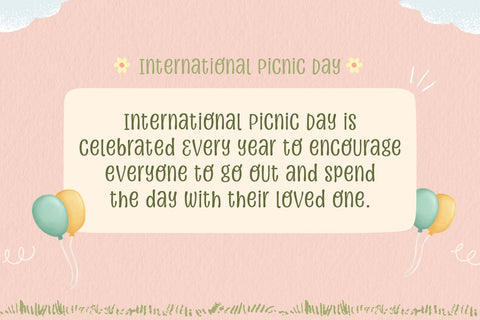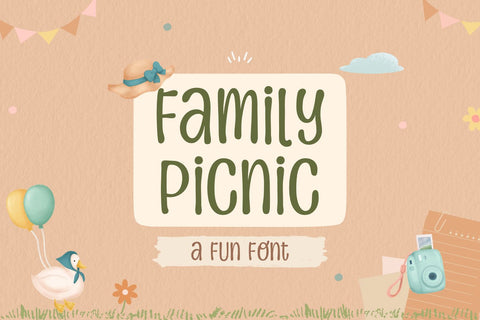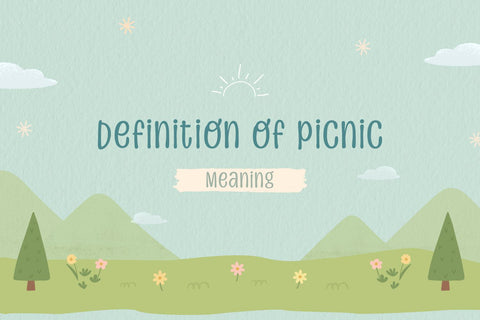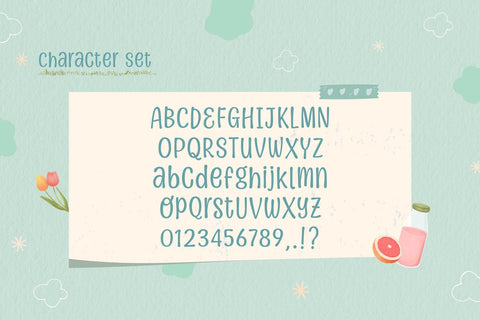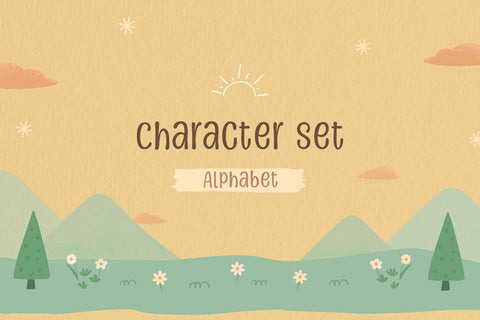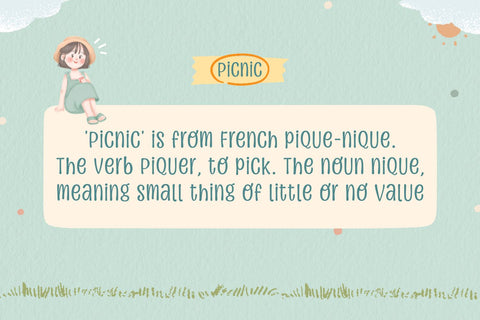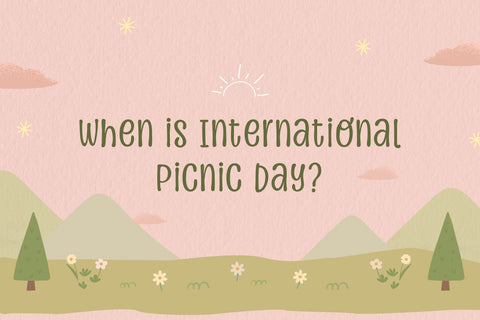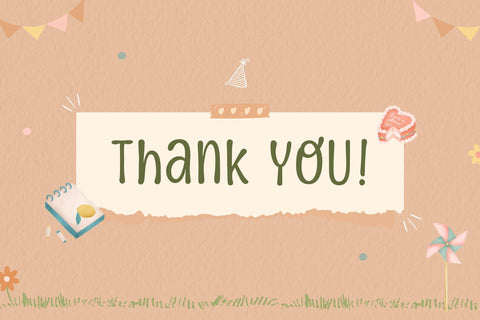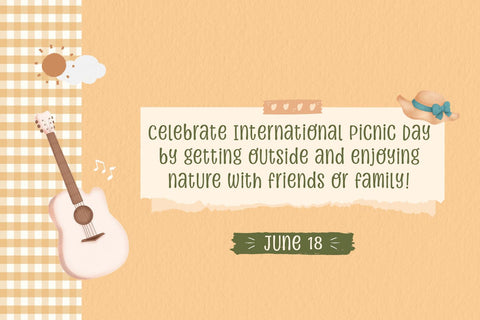
Family Picnic - a Fun Font
Family Picnic is a fun font. This font is perfect for crafting, flyers, kids projects, school projects, and posters. Add this font to your most creative ideas, and notice how it makes them stand out!